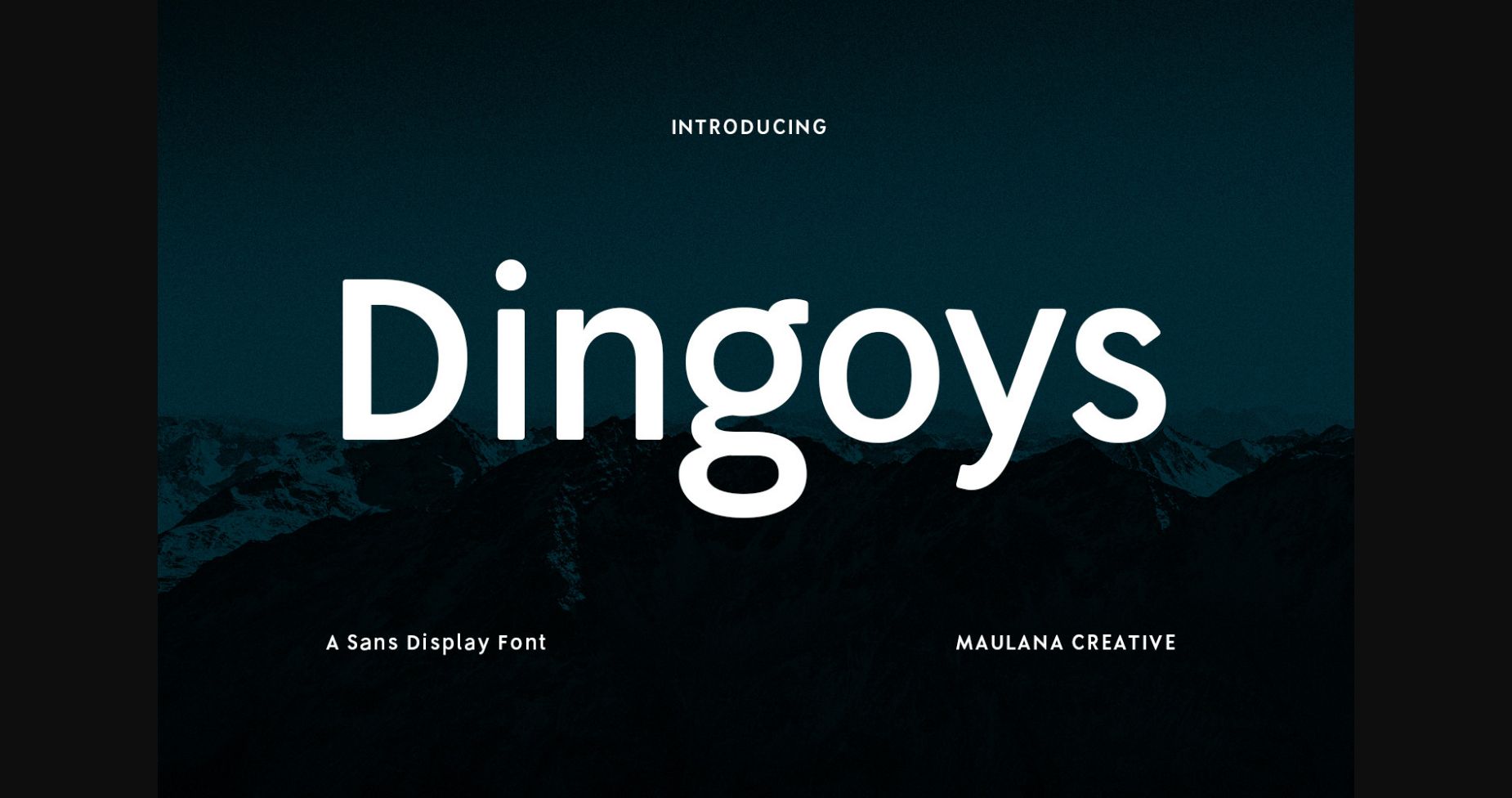
About Dingoys Font
Quirky and fun, Dingoys will definitely bring a subtle cheer to your creative projects. You can use it for stickers, posters, social media posters, apparel, labels, and more!